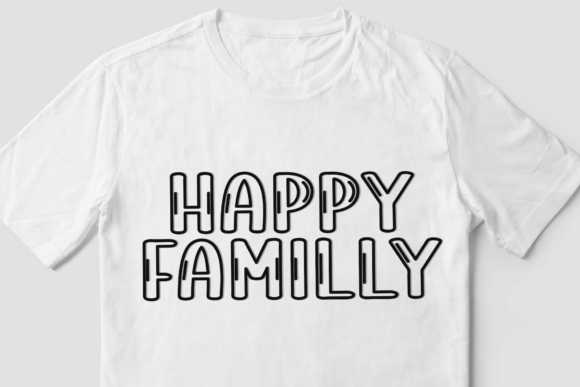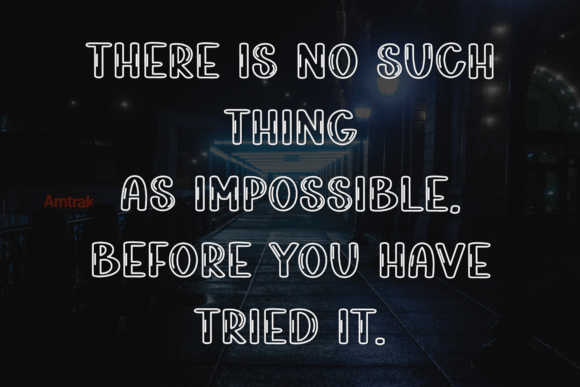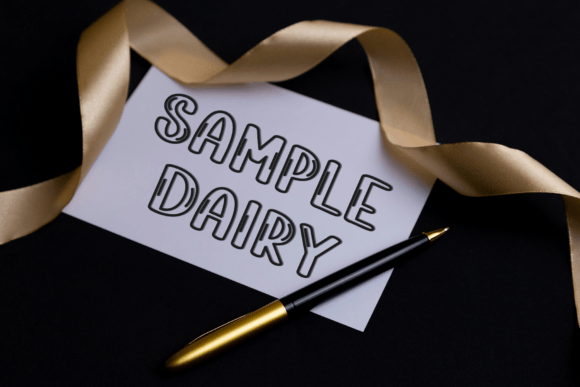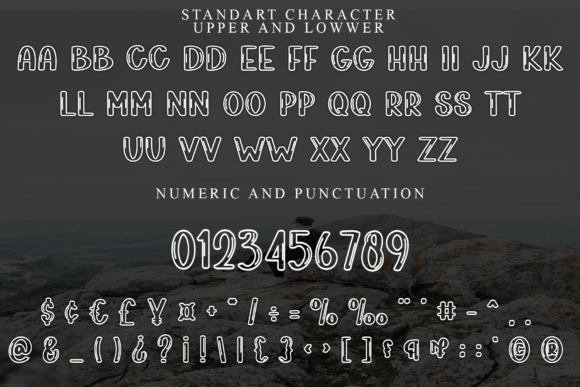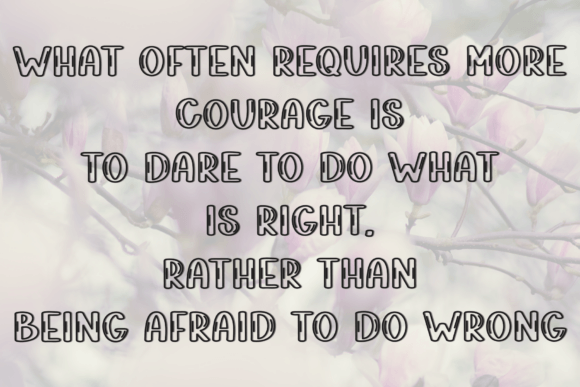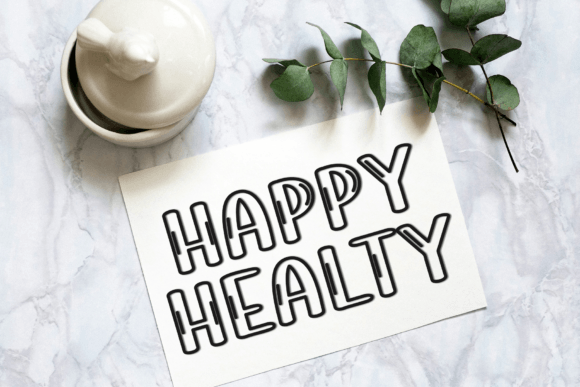
Bubble Foam Font: Add a Playful Touch to Your Designs
Are you looking for a font that can add a dash of warmth and friendliness to your designs? Look no further than the Bubble Foam font! This casual and creative font is perfect for personal projects, invitations, social media graphics, and more. Its round, playful strokes create a relaxed and approachable feel that’s sure to capture the attention of your audience.
The Charm of Bubble Foam Font
Bubble Foam font boasts a charming, hand-drawn aesthetic that’s sure to add a fun and unique touch to any design. Its playful strokes and rounded edges create a sense of whimsy and friendliness, making it perfect for designs that require a personal touch. Whether you’re creating invitations, social media graphics, or personal projects, Bubble Foam font is sure to bring a smile to your audience’s faces.
Key Features of Bubble Foam Font
• Casual and Creative: Bubble Foam font has a casual and creative vibe that’s perfect for personal projects and designs that require a friendly touch.
• Playful Strokes: The font’s round, playful strokes create a relaxed and approachable feel that’s perfect for designs that require a personal touch.
• Hand-Drawn Aesthetic: Bubble Foam font boasts a charming, hand-drawn aesthetic that’s sure to add a fun and unique touch to any design.
Use Cases for Bubble Foam Font
Bubble Foam font is versatile and can be used in various design projects, including:
• Personal Projects: Use Bubble Foam font to add a personal touch to your personal projects, such as photo albums, scrapbooking, and more.
• Invitations: Create beautiful and playful invitations for parties, birthdays, and other special occasions using Bubble Foam font.
• Social Media Graphics: Use Bubble Foam font to create engaging and playful social media graphics that are sure to capture the attention of your audience.
• Crafting Projects: Bubble Foam font is perfect for crafting projects, such as card making, journaling, and more.
Tips for Using Bubble Foam Font
Here are some tips for using Bubble Foam font in your designs:
• Pair with Other Fonts: Pair Bubble Foam font with other fonts to create a unique and interesting contrast.
• Use in Headlines: Use Bubble Foam font in headlines to add a playful touch to your designs.
• Experiment with Colors: Experiment with different colors to find the perfect combination that matches your design.
• Keep it Simple: Keep your design simple and clean to let the Bubble Foam font shine.
In conclusion, Bubble Foam font is a casual and creative font that’s perfect for designers and crafters looking to add a playful touch to their designs. Its charming, hand-drawn aesthetic and playful strokes create a relaxed and approachable feel that’s sure to capture the attention of your audience. With its compatibility with various application engines and PUA Encoded glyphs, Bubble Foam font is a versatile font that can be used in various design projects.
Get Creative with Bubble Foam Font
So, what are you waiting for? Get creative with Bubble Foam font and add a playful touch to your designs. Whether you’re a designer or crafter, Bubble Foam font is sure to inspire you to create unique and engaging designs that capture the attention of your audience.